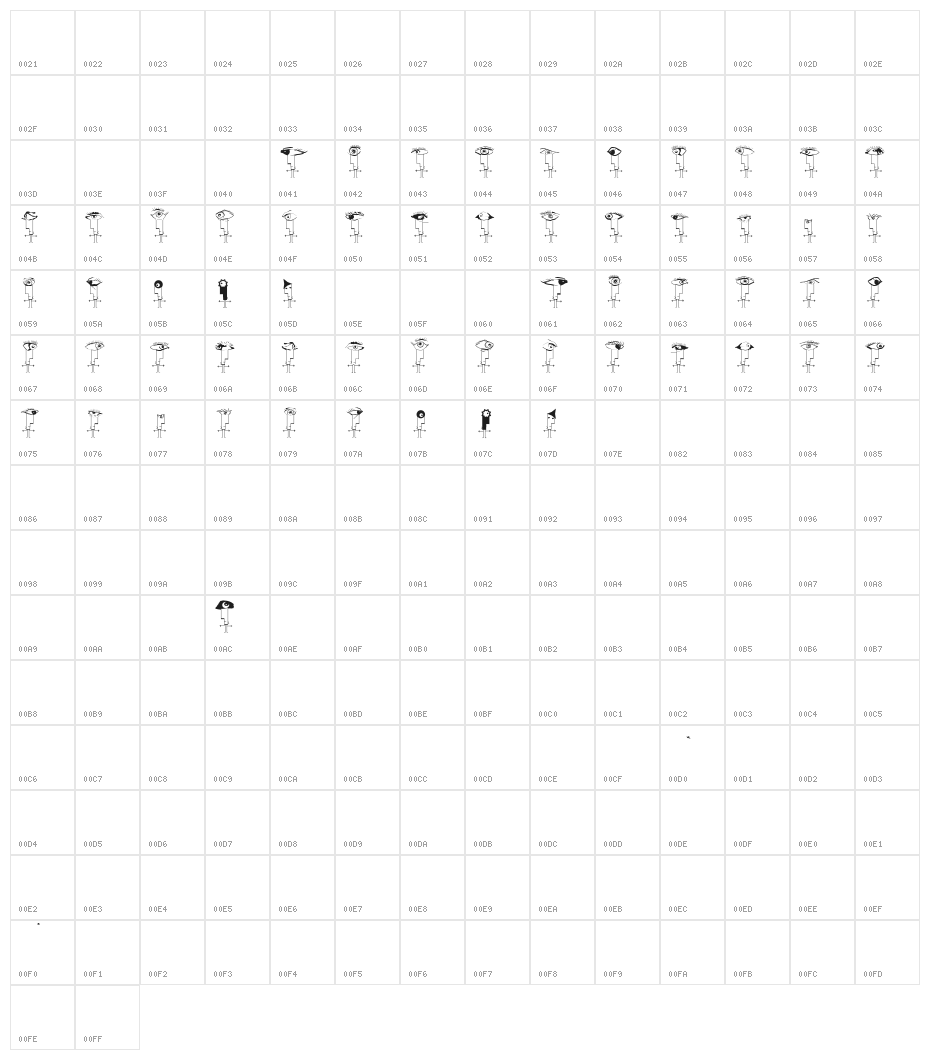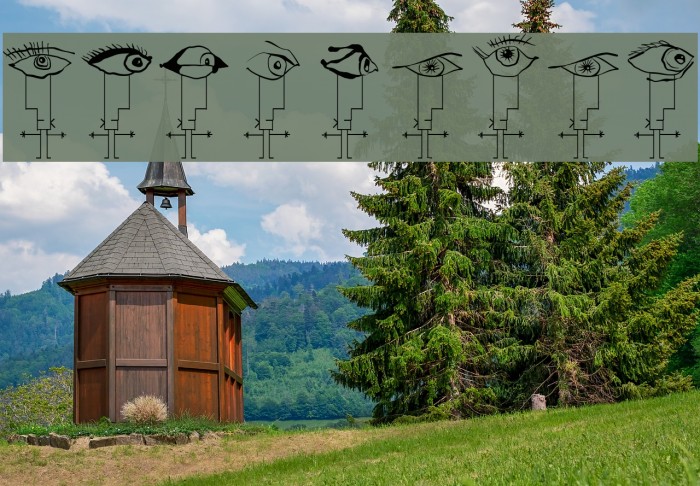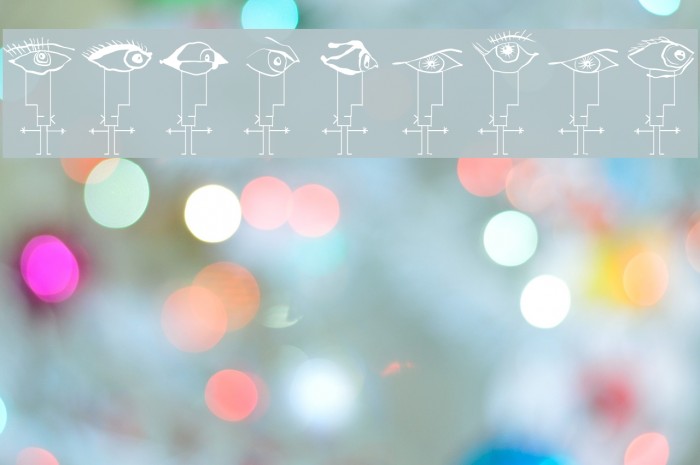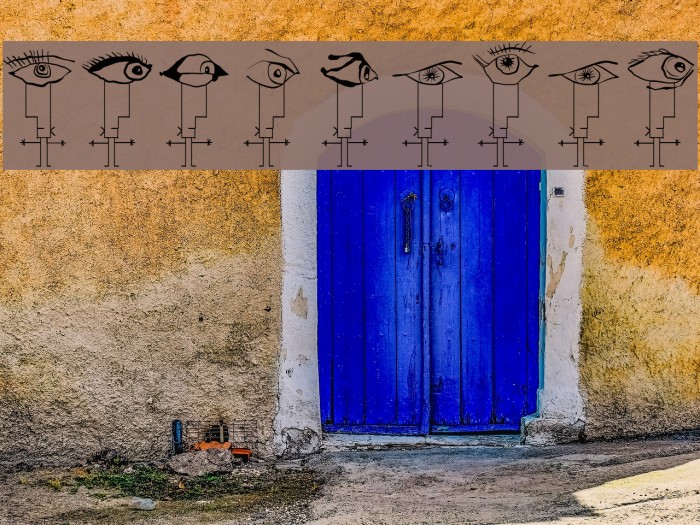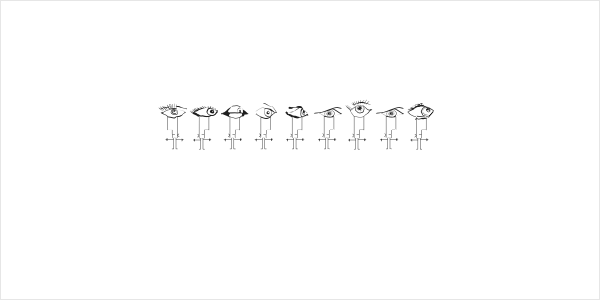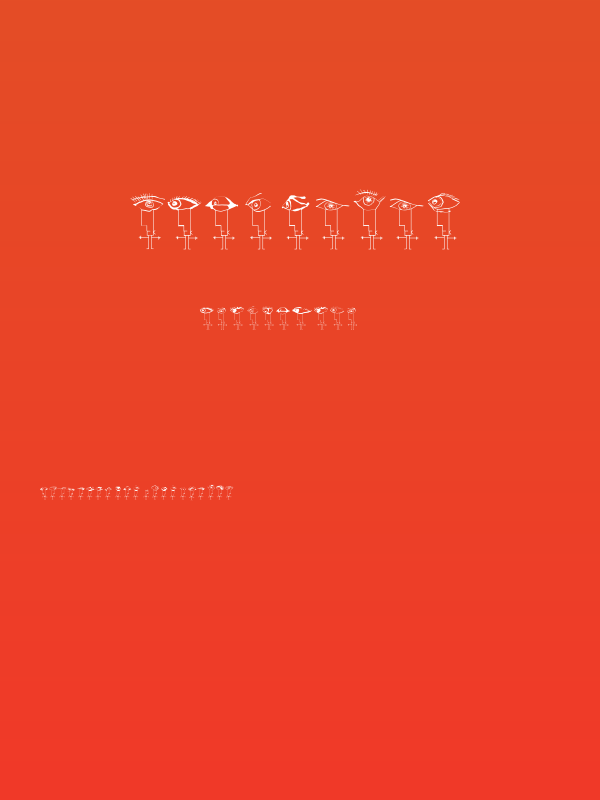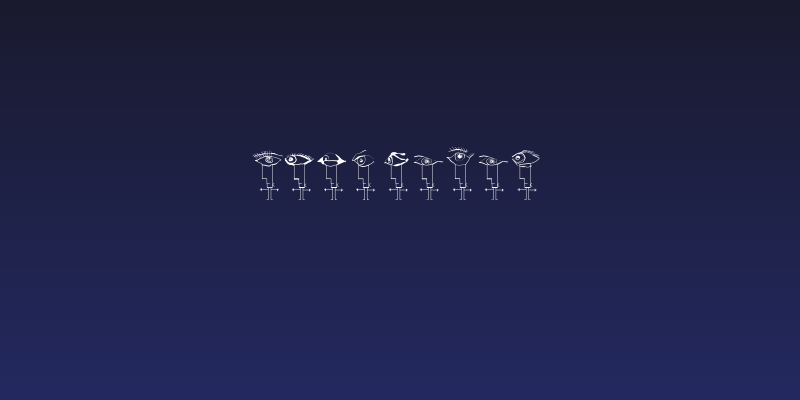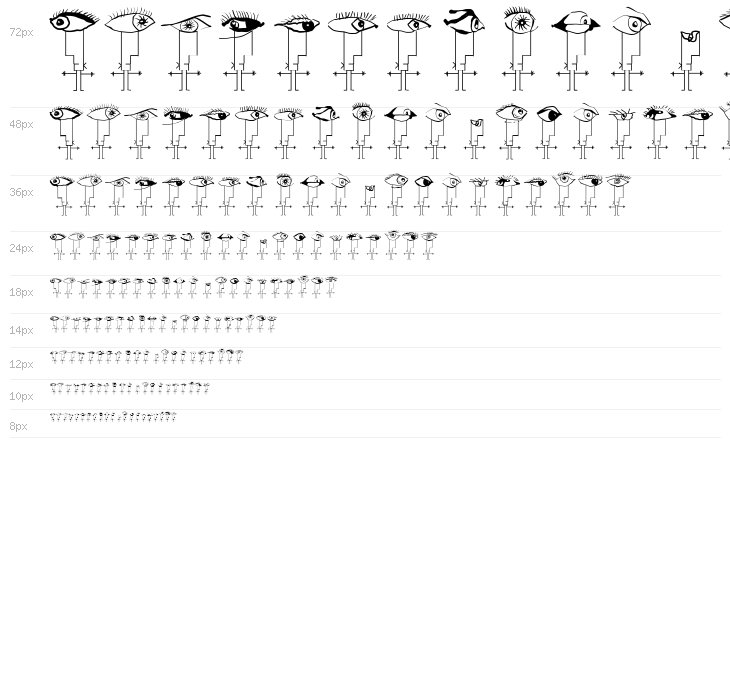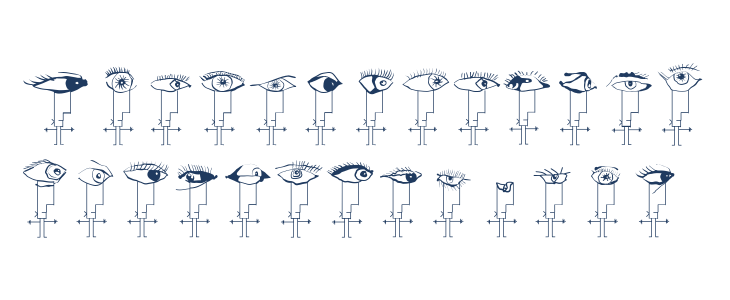
Strokemen Font
Strokemen Description
This unique and whimsical design features a series of stick figures with various eye designs as their heads, each representing a different character. The figures are simplistic, with straight lines forming the body, arms, and legs, while the heads are creatively detailed with diverse eye shapes, lashes, and expressions. The overall look is playful and artistic, making it more of an illustrative or decorative element rather than a traditional font. The characters are evenly spaced, maintaining a consistent alignment across the rows.
| Use Case | Illustrations, Decorative elements |
| Proposed Projects | Ideal for creative projects such as children's book illustrations, playful posters, or unique branding elements that require a touch of humor and creativity. |